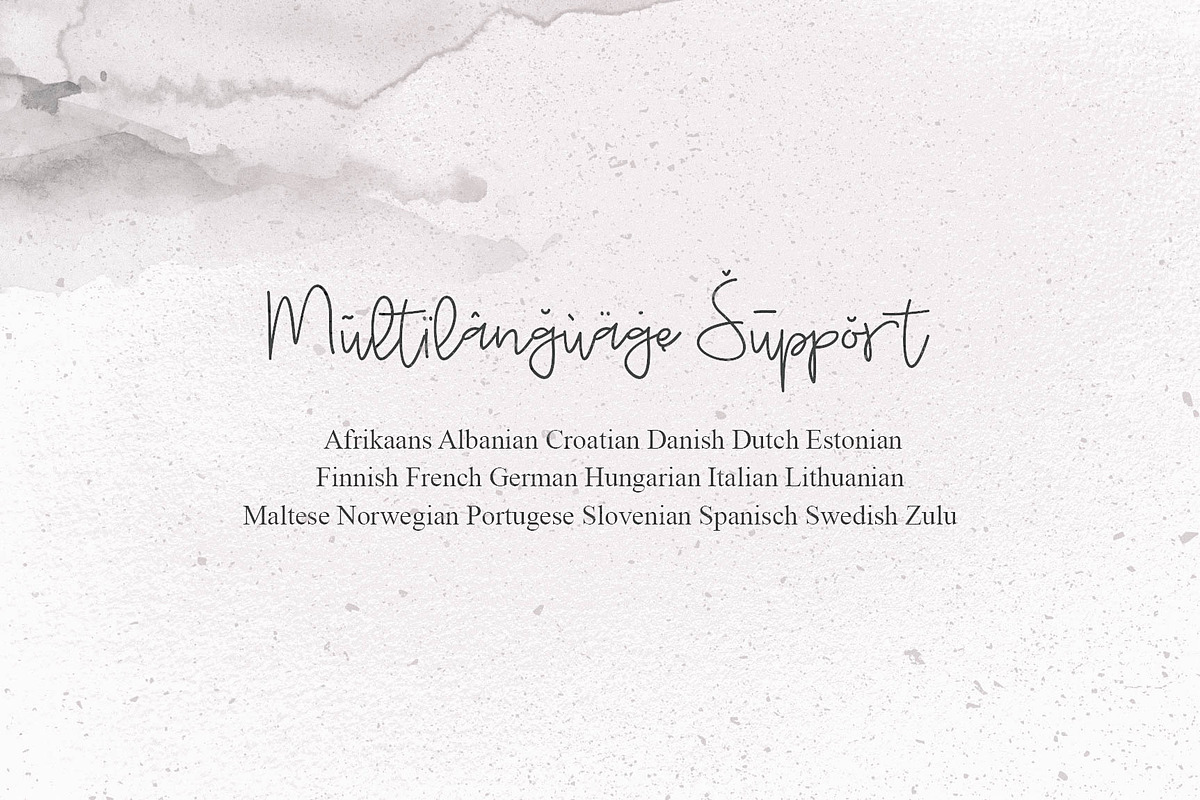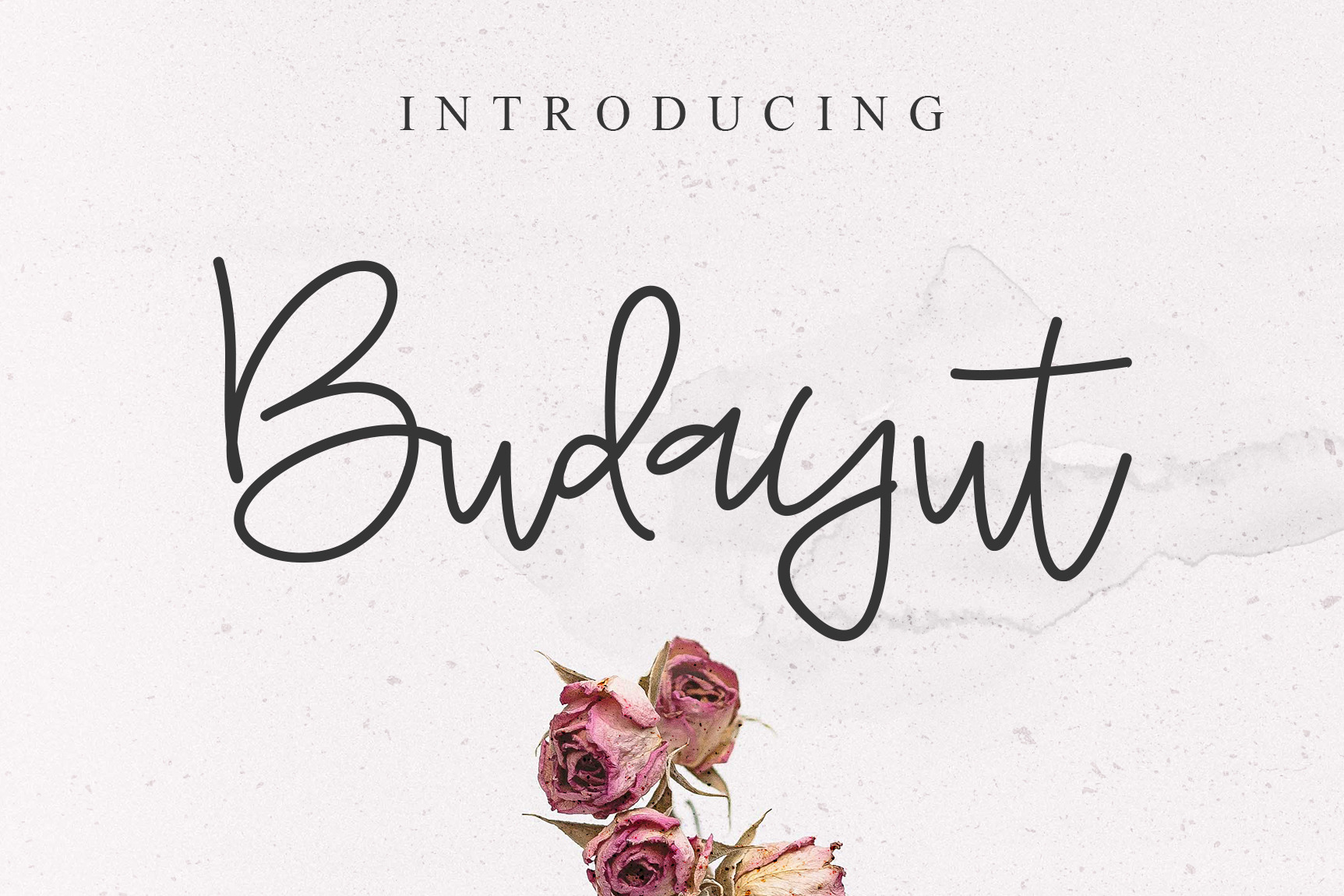
Budayut Signature Font
Introducing Budayut signature font! It allows you to create stunning and easy hand-lettering in an instant. Ideal for the logo, quotes, wedding, product label/packaging, fashion, letter, advertising, invitation, poster, merchandise, greeting cards, etc
- Support following language : Afrikaans Albanian Croatian Danish Dutch Estonian English Finnish French German Hungarian Italian Indonesian Lithuanian Maltese Norwegian Portugese Slovenian Spanisch Swedish Zulu